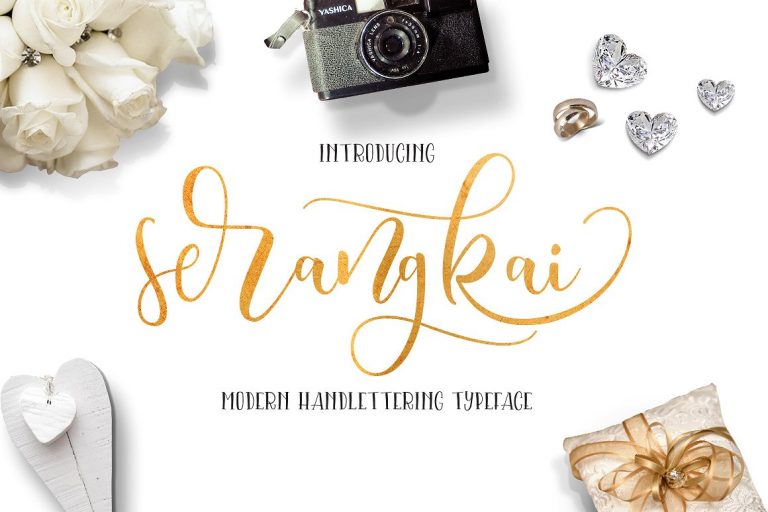
Hello world..!! I am very happy and happy to be introduced to you the best typography, and today is a modern handwriting typeface. Introducing Serangkai. It is was designed by thirtypath. Serangkai – simple and easy to create awesome lettering, just type your words and then you will immediately see the great results. Very suitable for greeting cards, branding materials, business cards, quotes, posters, and more!This font are perfect for wedding postcard. Or you can create perfect and unique design of your logo, blog, stationery, marketing, magazines and more ?